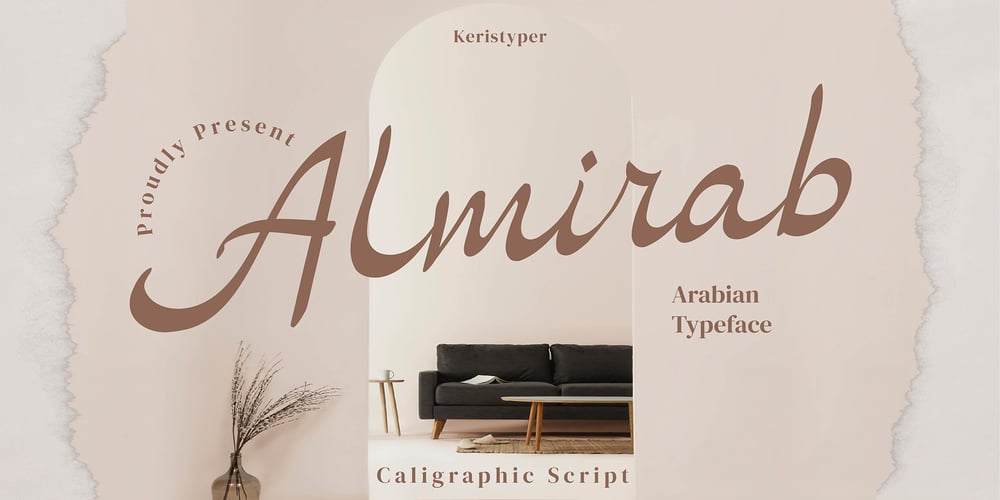
Almirab Font Family was designed by Tezar Tantular and published by Keristyper Studio. Almirab contains 1 styles and family package options. Almirab Script is a classic Script font inspired by Arabic classic handwriting that uses a flat pen (or signature pen) and is written in the low height of letterforms. This font is good for logo design, Social media, Movie Titles, Books Titles, short text even long text letters, and good for your secondary text font with sans or serif.Featured: Standard Uppercase & Lowercase Numeral & Punctuation Multilingual : ä ö ü Ä Ö Ü ß ¿ ¡ Alternate & Ligature PUA encoded We recommend programs that support the OpenType feature and the Glyphs panel such as Adobe applications or Corel Draw. so you can use all the variations of the glyphs.Hope you enjoy our fonts!